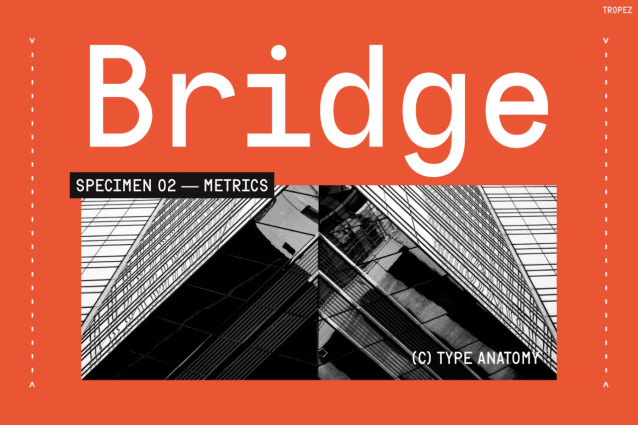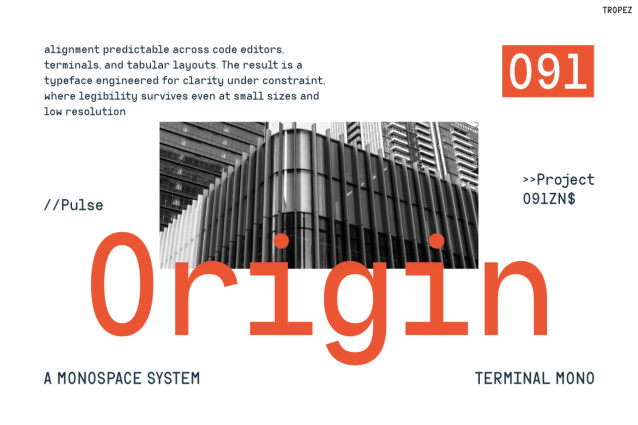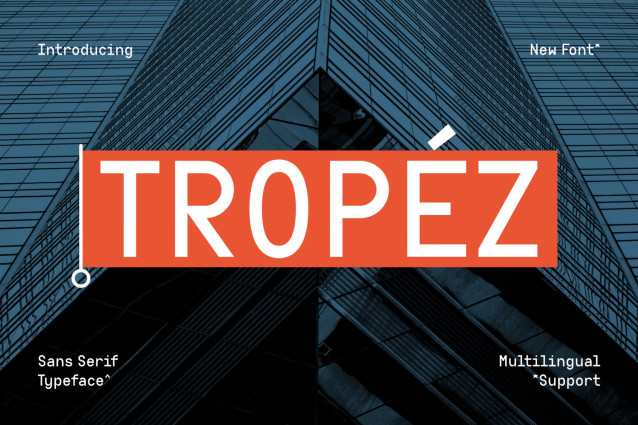
TROPEZ Font
TROPEZ — Modern Precision, Strong Visual Impact
Modern Font TROPEZ is a clean and structured typeface designed for contemporary creative projects. First of all, its geometric letterforms and precise proportions create a distinctive technical aesthetic. At the same time, TROPEZ maintains excellent readability, so it feels modern, professional, and easy to use.
Because of this, it works beautifully for branding, posters, editorial layouts, websites, packaging, architecture, and digital campaigns. Furthermore, its balanced design helps create a strong visual hierarchy without overwhelming the overall composition.